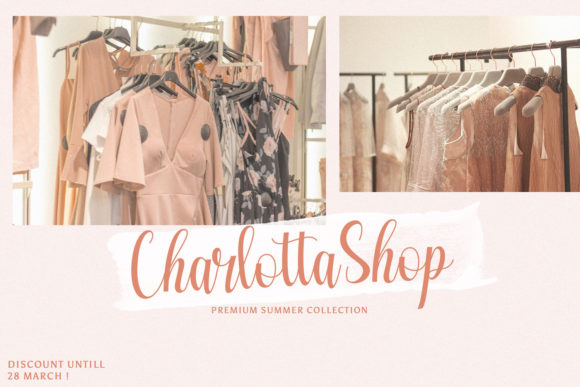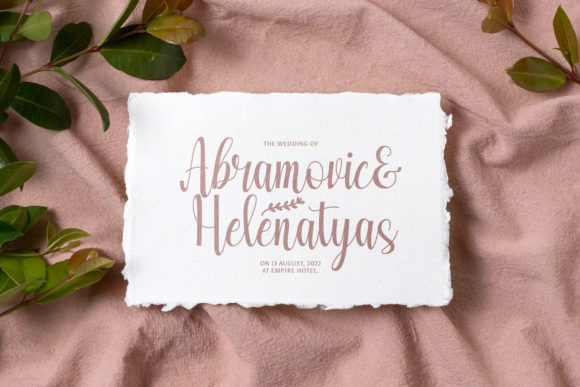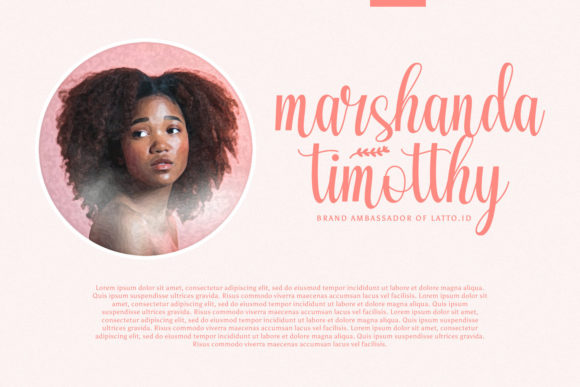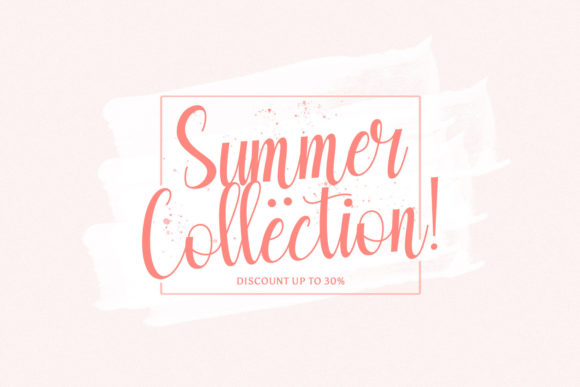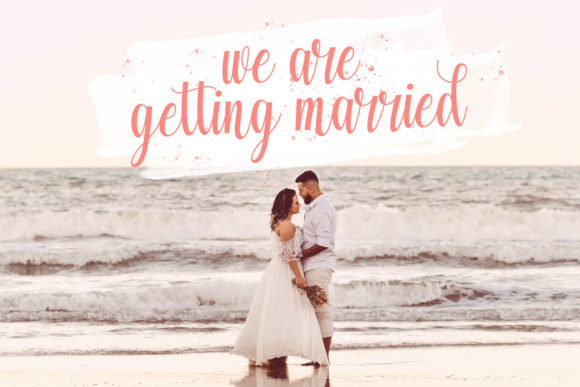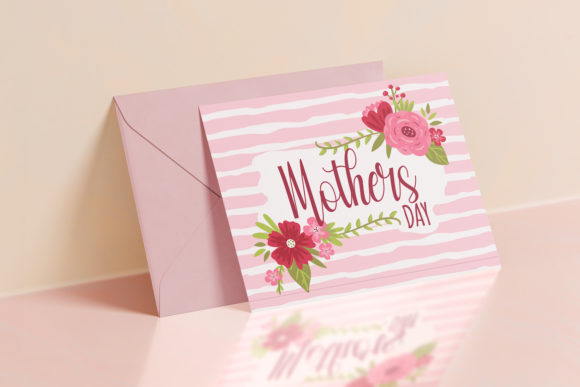
Introducing Ameliya Font: The Charming Script Font to Elevate Your Designs
Are you tired of using the same old fonts in your designs? Do you want to add a touch of playfulness and charm to your creative projects? Look no further than Ameliya Font, a lovely script font that is sure to make your designs stand out. In this article, we’ll take a closer look at Ameliya Font, its features, and how you can use it to take your designs to the next level.
What is Ameliya Font?
Ameliya Font is a beautiful script font that features charming, playful characters that seem to dance along the baseline. Its unique and elegant design makes it perfect for a wide range of creative projects, from wedding invitations and branding materials to social media graphics and craft projects.
Key Features of Ameliya Font
- Playful and Charming Characters: Ameliya Font features playful and charming characters that add a touch of whimsy to your designs.
- Elegant and Sophisticated: Despite its playful nature, Ameliya Font is also elegant and sophisticated, making it perfect for high-end designs.
- Easy to Read: The font is easy to read, even in small sizes, making it perfect for body text and captions.
- Highly Versatile: Ameliya Font can be used for a wide range of creative projects, from digital designs to print materials.
How to Use Ameliya Font in Your Designs
Ameliya Font is a highly versatile font that can be used in a variety of creative projects. Here are a few ideas to get you started:
- Wedding Invitations: Use Ameliya Font to create beautiful and elegant wedding invitations that set the tone for the big day.
- Branding Materials: Add a touch of playfulness and charm to your branding materials, such as business cards, brochures, and letterheads.
- Social Media Graphics: Use Ameliya Font to create eye-catching social media graphics that stand out in crowded feeds.
- Craft Projects: Add a personal touch to your craft projects, such as handmade cards, gift tags, and scrapbooking pages.
Tips for Getting the Most Out of Ameliya Font
Here are a few tips for getting the most out of Ameliya Font:
- Experiment with Different Sizes: Ameliya Font looks great in a variety of sizes, from small captions to large headings.
- Pair with Other Fonts: Try pairing Ameliya Font with other fonts to create interesting and unique typography combinations.
- Use in Combination with Images: Use Ameliya Font in combination with images to add a touch of personality to your designs.
Ameliya Font is a beautiful and versatile script font that is sure to elevate your designs. Its playful and charming characters make it perfect for a wide range of creative projects, from wedding invitations and branding materials to social media graphics and craft projects. With its ease of use and highly versatile design, Ameliya Font is a must-have for any designer or crafter looking to add a touch of whimsy and charm to their work.